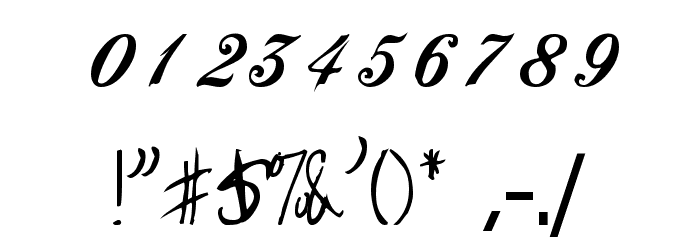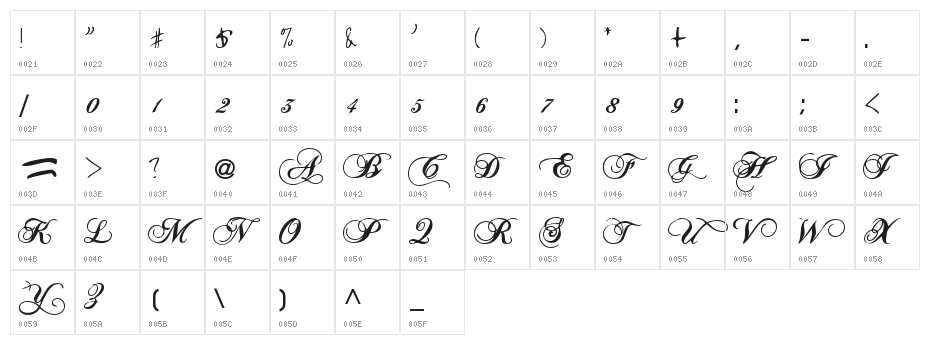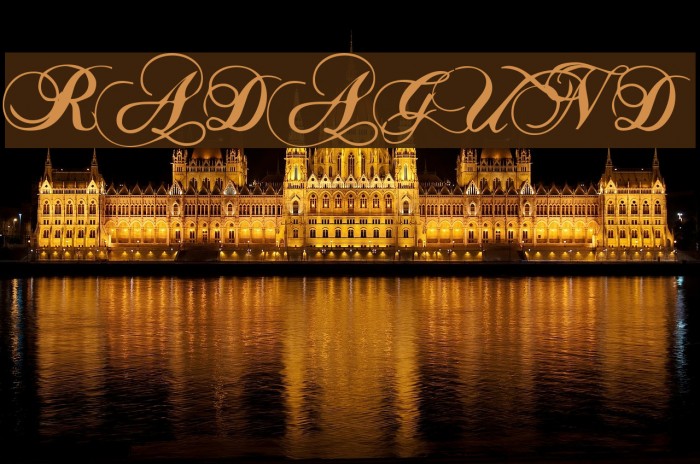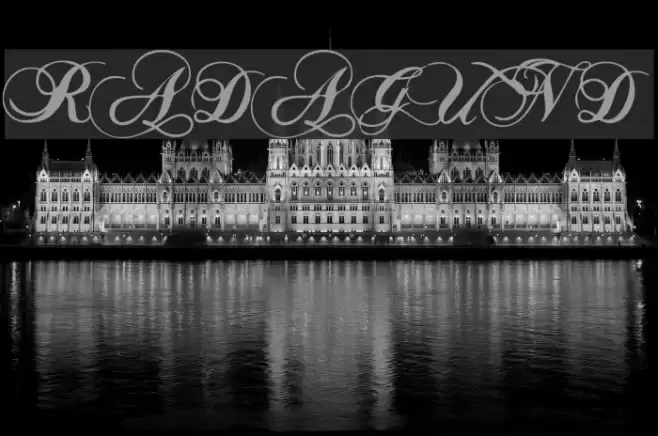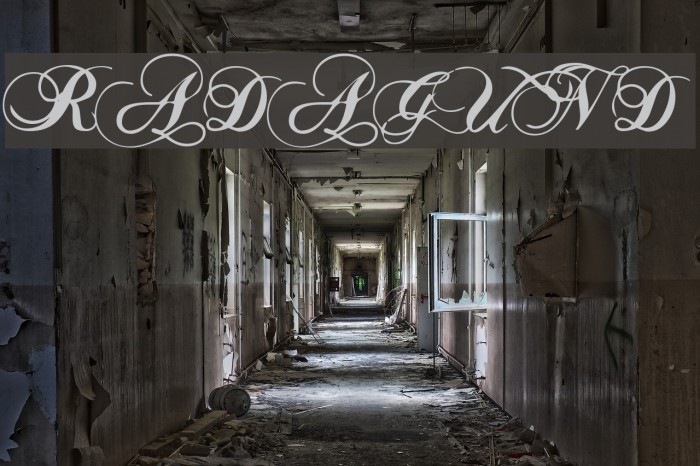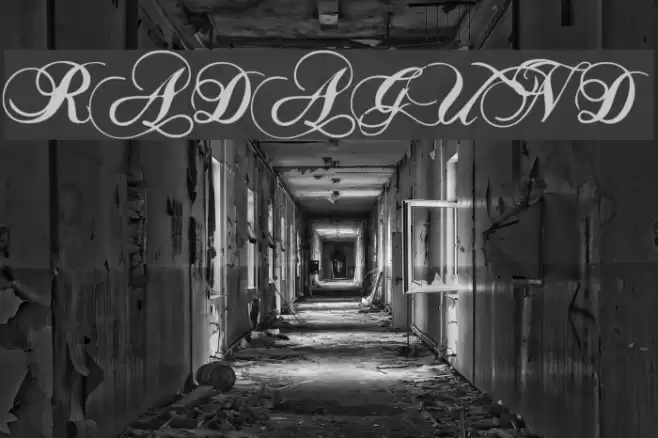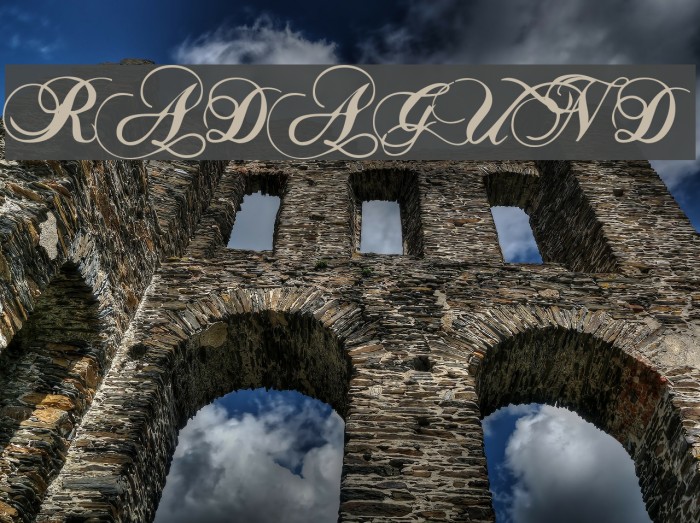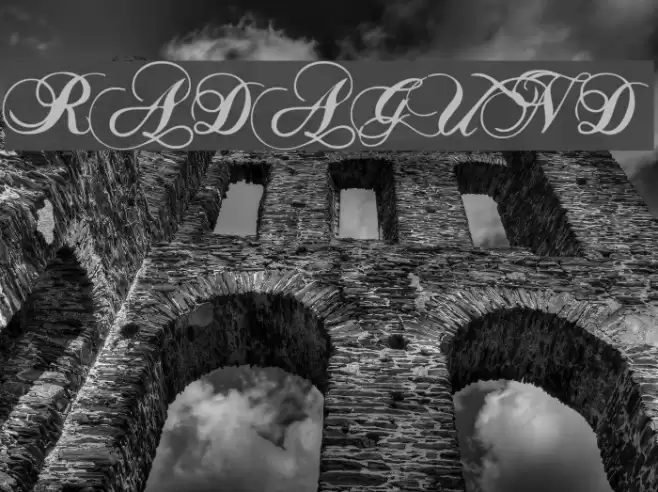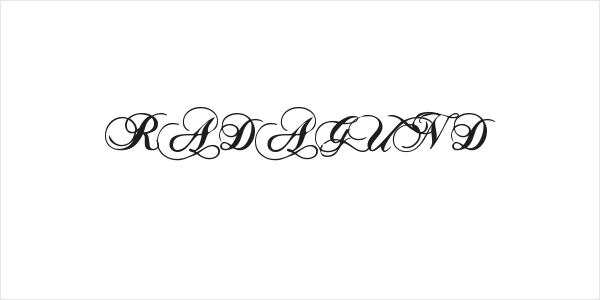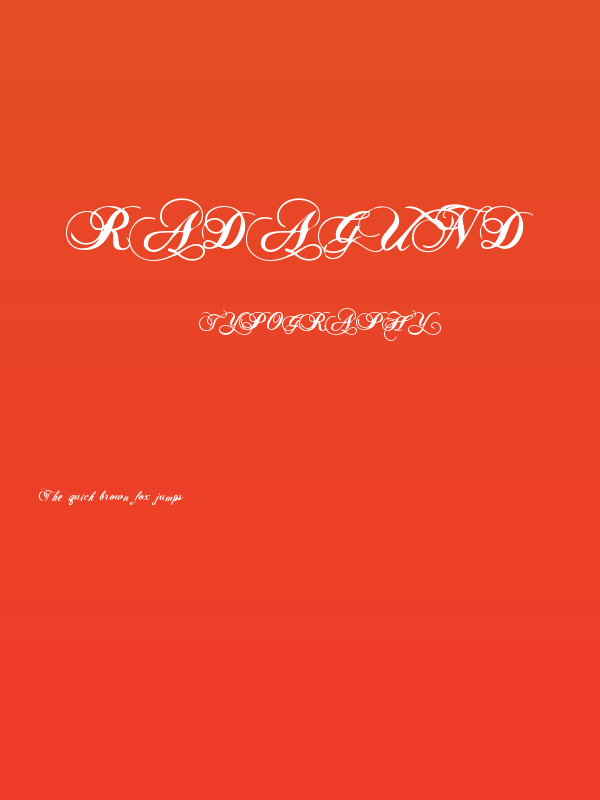
RADAGUND Font
RADAGUND Description
This elegant script font features intricate, flowing lines with a high level of detail, making it ideal for sophisticated and formal applications. The uppercase letters are adorned with elaborate swashes and flourishes, giving them a decorative and ornate appearance. The lowercase letters maintain a smooth, cursive style that complements the uppercase characters beautifully. The numerals and special characters are designed with the same attention to detail, ensuring a cohesive look across all elements. The font's high contrast between thick and thin strokes adds to its refined and luxurious feel, making it suitable for upscale branding and design projects.